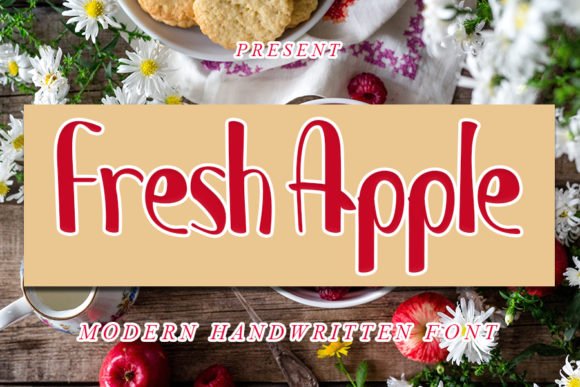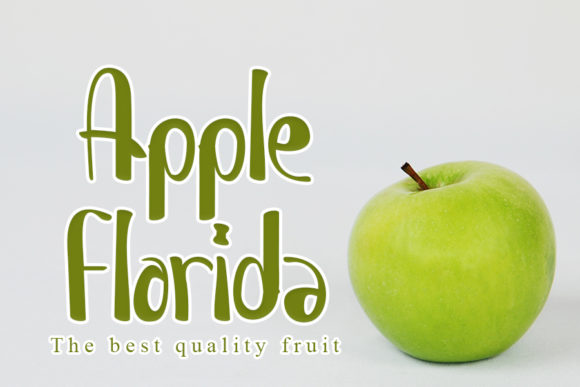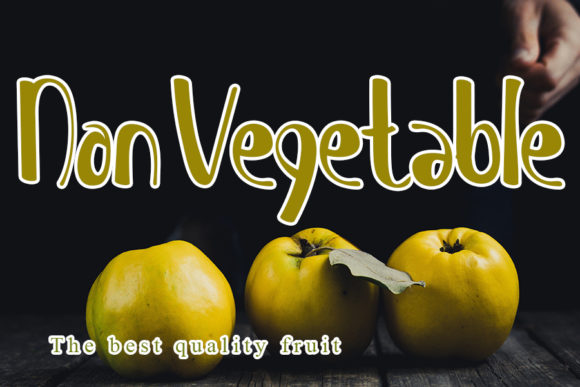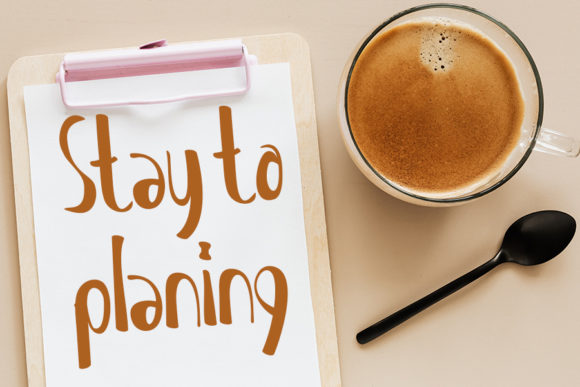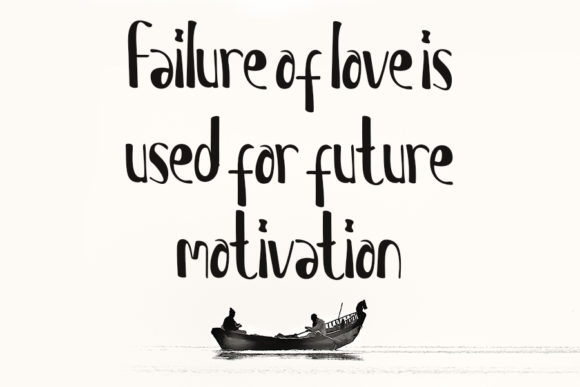
Discover the Perfect Blend of Whimsy and Elegance: Fresh Apple Font
Have you ever stared at a blank page, your mind a jumble of ideas, and your pen hovering over the paper, waiting for the perfect spark to ignite your creativity? That’s where the magic happens, and that’s exactly where the Fresh Apple Font comes in – to add a dash of personality to your designs and bring your ideas to life.
This charming handwritten font is the perfect blend of natural charm and unique style, making it an ideal choice for a wide range of designs, from greeting cards to social media graphics. With its effortless, casual feel, the Fresh Apple Font is a valuable addition to any designer’s toolkit, allowing you to express your creativity and push the boundaries of your imagination.
Fresh Apple Font Key Features
- Size: The font family includes 6 styles, ranging from Thin to Extra Bold, with 900 glyphs in each style, providing a comprehensive set of characters for various languages.
- Unique Characteristics: The font features a unique blend of modern and vintage elements, with a focus on clean lines, rounded edges, and a subtle texture, making it perfect for branding and packaging design.
- Font Pairing: The font family is designed to be paired with other fonts, allowing users to create unique and harmonious typography combinations that suit their design needs.
Designer Review: Fresh Apple Font
When I first laid eyes on the Fresh Apple Font, I was immediately drawn to its playful and modern aesthetic ✨. The font’s rounded edges and friendly curves evoke a sense of approachability and warmth, making it perfect for use in branding and marketing materials.
The font’s versatility is another major plus ✨. It works well in a variety of contexts, from digital interfaces to print materials, and even on its own as a standalone logo. I particularly appreciate the font’s ability to adapt to different sizes and resolutions without losing its charm.
- ⚠️ Limited language support: While the font includes a wide range of Latin characters, it falls short in terms of language support for non-Latin scripts.
- ⚠️ Not ideal for formal or traditional settings: The font’s playful nature makes it better suited for casual or modern applications, rather than formal or traditional settings.
Overall, I’m impressed with the Fresh Apple Font’s unique blend of style and versatility. While it may have some limitations, it’s a great choice for designers looking to add a touch of modern whimsy to their projects ✨.
Practical Application Guide for Fresh Apple Font
Tips for Getting the Most Out of Fresh Apple Font
To get the most out of Fresh Apple Font, consider the following tips:
- Use it for headings and titles to create a clear visual hierarchy.
- Pair it with a sans-serif font for body text to create a clean and modern look.
- Experiment with different font sizes and colors to add visual interest.
Some common use cases for Fresh Apple Font include:
- Create a warm and inviting color palette with shades of red, orange, and yellow.
- Use the Fresh Apple Font for the menu titles, and pair it with a clean sans-serif font for the descriptions.
- Combine the font with illustrations of fresh apples, flowers, or other bakery-related elements to create a cohesive design.
- Create a natural and earthy color palette with shades of green, brown, and beige.
- Use the Fresh Apple Font for the journal title, and pair it with a simple serif font for the tagline.